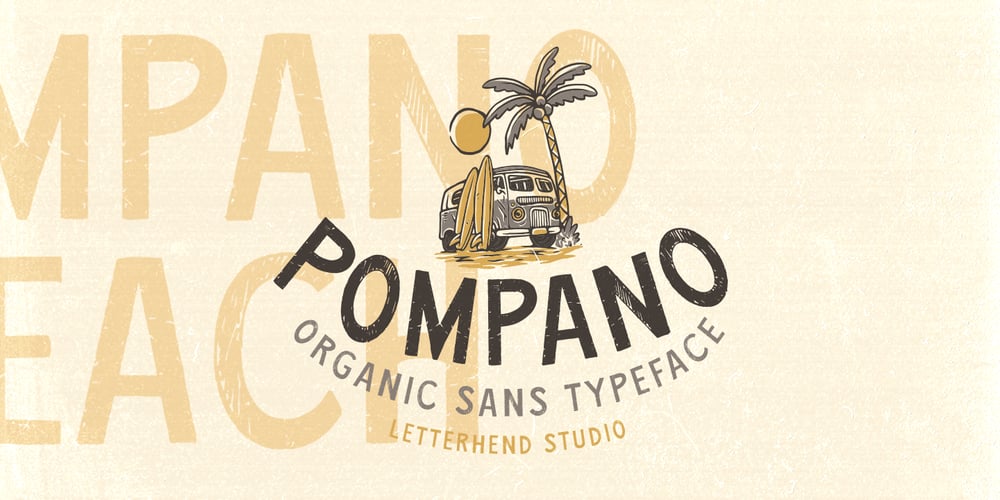
Pompano Font Family was designed by Hendry Juanda and published by Letterhend. Pompano contains 2 styles and family package options. Pompano is an organic sans serif typeface which is purposely made for headline, display or logotype.This type of font perfectly made to be applied especially in logo, and the other various formal forms such as invitations, labels, logos, magazines, books, greeting / wedding cards, packaging, fashion, make up, stationery, novels, labels or any type of advertising purpose.Features : regular & stamp version uppercase & lowercase numbers and punctuation multilingual alternates & ligatures PUA encoded We highly recommend using a program that supports OpenType features and Glyphs panels like many of Adobe apps and Corel Draw, so you can see and access all Glyph variations.